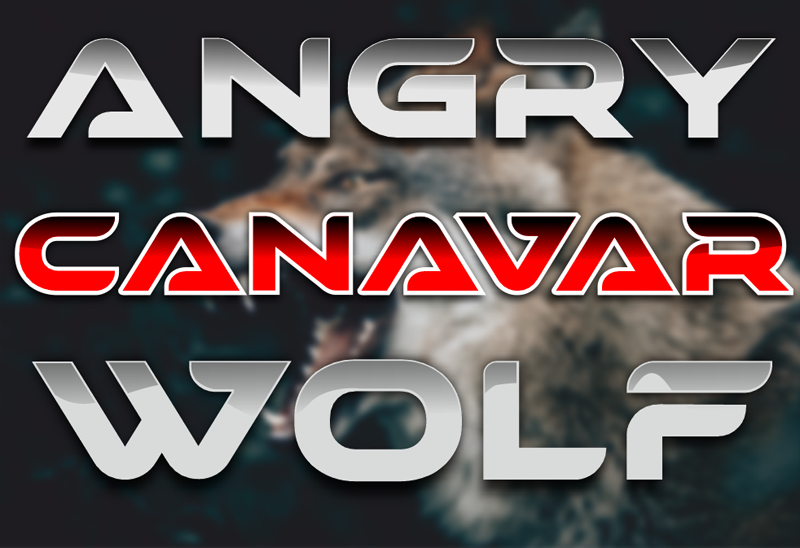
Preview and download Canavar Font. Created by Uroboros Design in Techno Sci-fi styles with Free for personal use license.
Canvar is a cool and stunning display font. This modern and bold vibe can easily apply to your favorite designs that require a powerful touch. https://www.creativefabrica.com/product/canavar/ |